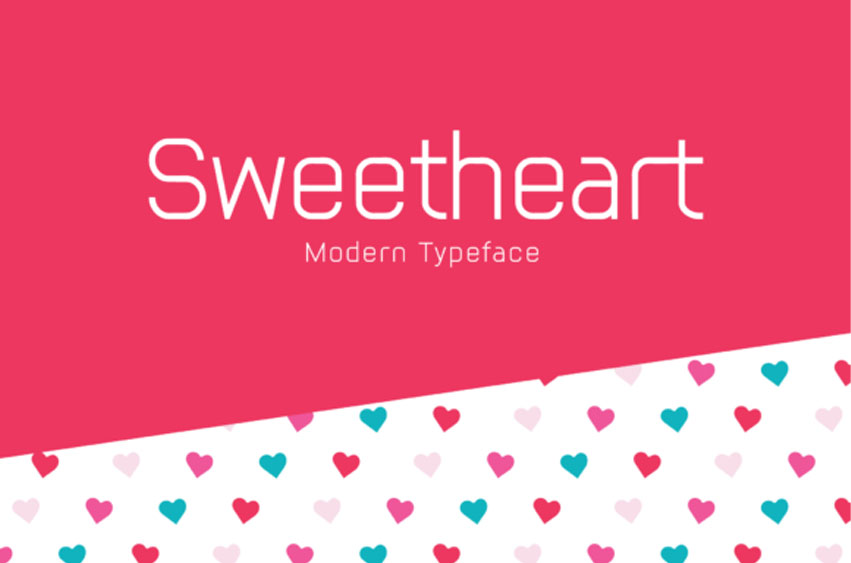
Sweetheart Font is a modern and stylish font.
It is perfectly suited for stationery, logos, t-shirts, paper, print design, website headers, photo frames, flyers, music covers, posters, image sliders, and much more.